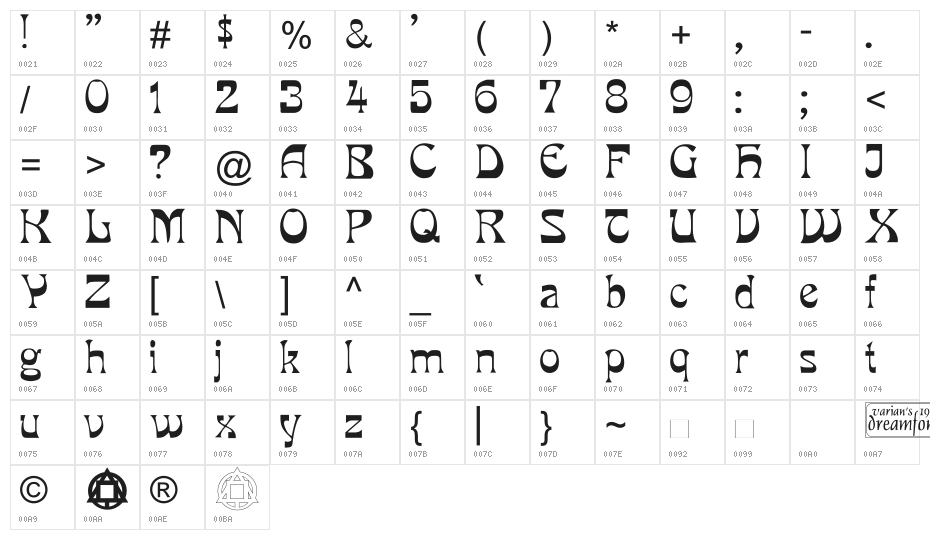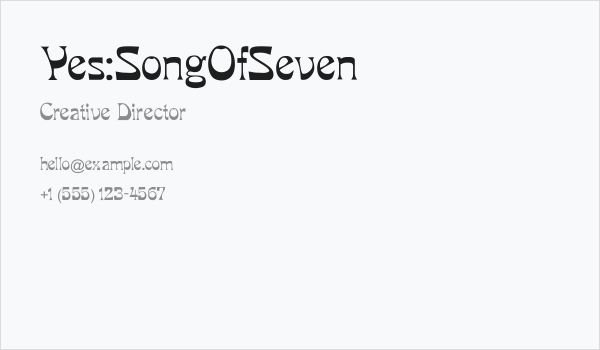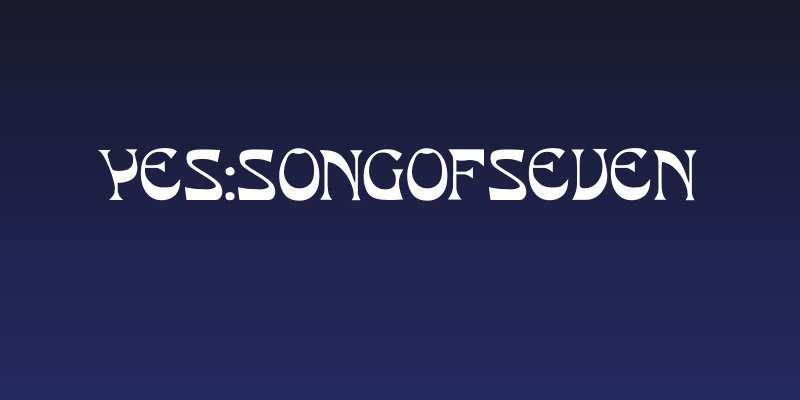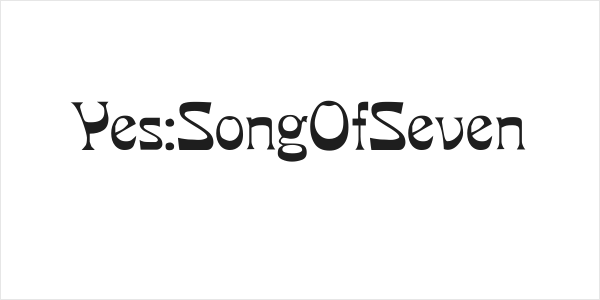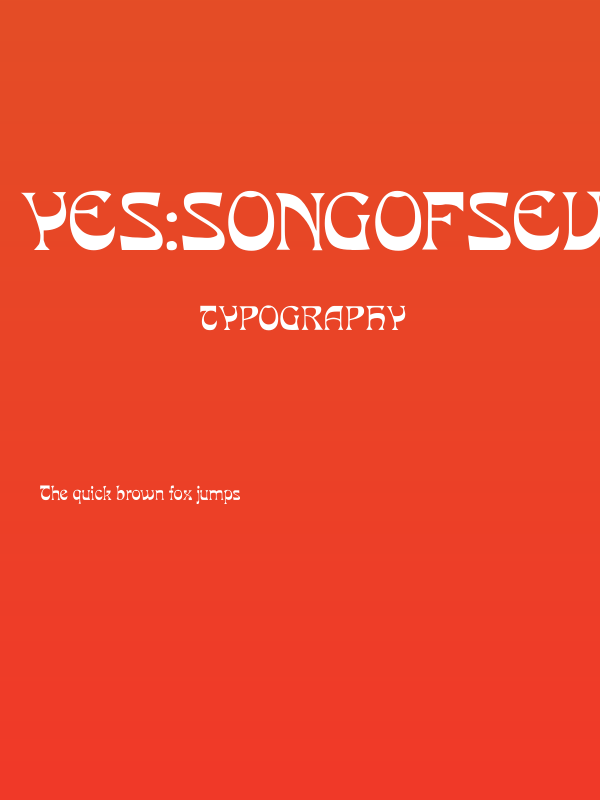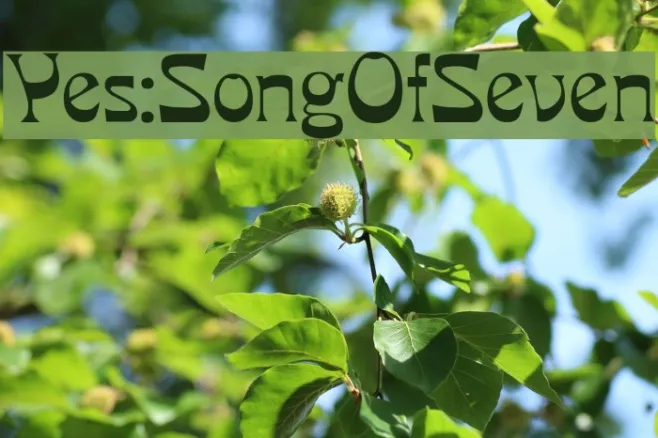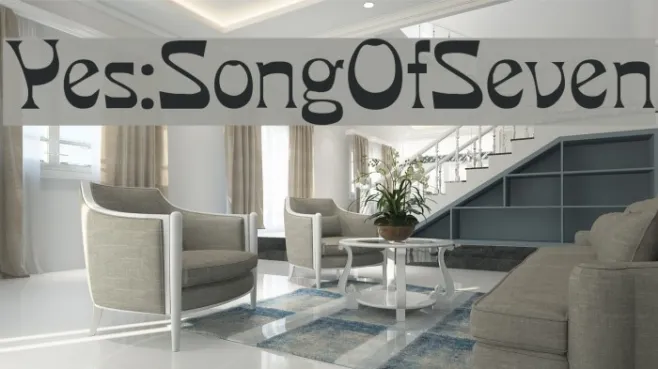
Yes:SongOfSeven Font
Yes:SongOfSeven Description
This font features a unique blend of modern and vintage elements, characterized by its bold and decorative style. The uppercase letters have a strong presence with thick, angular strokes and subtle curves, creating an eye-catching appearance. The lowercase letters maintain a consistent style, with slightly more rounded forms that add a touch of elegance. The numerals are bold and geometric, matching the overall aesthetic of the font. Special characters are designed with the same attention to detail, ensuring a cohesive look across all glyphs. This font's distinct style makes it suitable for projects that require a bold and artistic touch.
| Overall Style | Modern, Vintage |
| Proposed Projects | Ideal for branding, poster design, album covers, and any project needing a bold, artistic flair. |